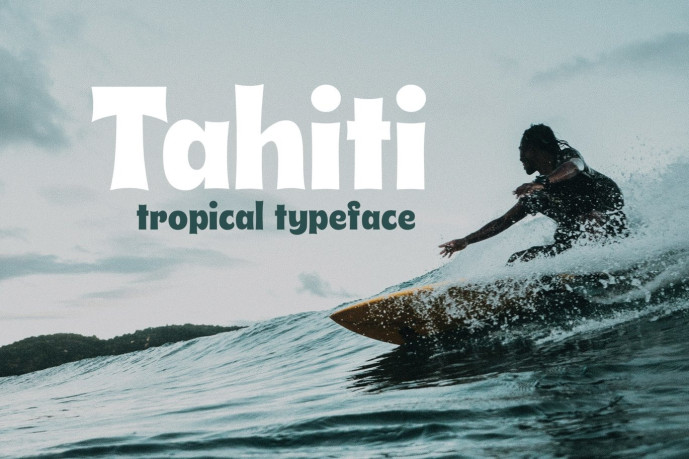
Tahiti – Tropical Beach Themed Surf Font
Say aloha to Tahiti, a tropical island-inspired font that rides the wave of summer with every curve. Designed to evoke the laid-back spirit of beach days, surfboards, and salty breezes, Tahiti blends bold energy with breezy charm—perfect for creatives who want their designs to feel like a vacation.
Whether you’re crafting logos for beachwear brands, posters for summer festivals, or packaging that screams island escape, Tahiti delivers a sun-kissed aesthetic with effortless style. Its playful yet polished letterforms channel the rhythm of the ocean and the warmth of the tropics, making it ideal for branding, social media graphics, signage, and more.
Features:
Tropical surf-inspired design with chill summer vibes
Perfect for logos, branding, posters, packaging, and digital art
Great for beach-themed events, travel blogs, and summer campaigns
Bold and stylish with a relaxed, handcrafted feel
Works beautifully in both print and digital formats
Let your creativity catch the wave—Tahiti is your passport to paradise.